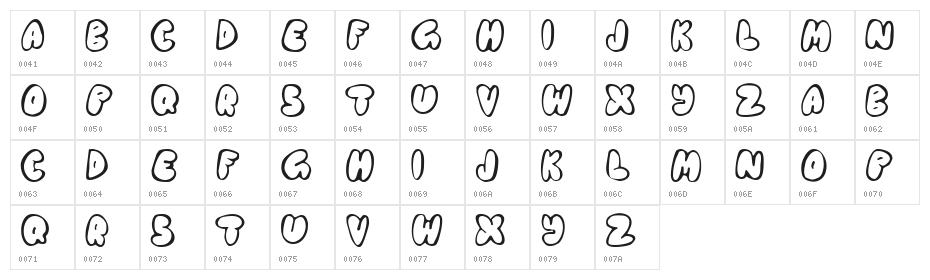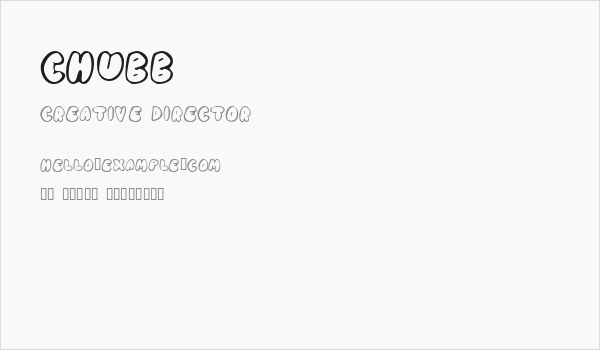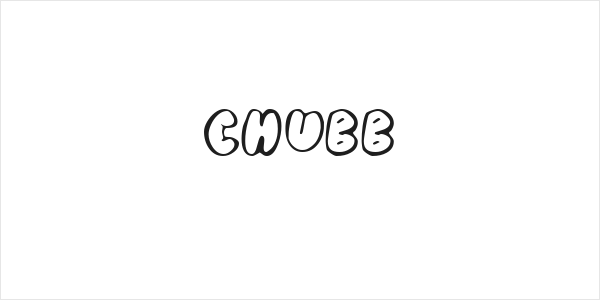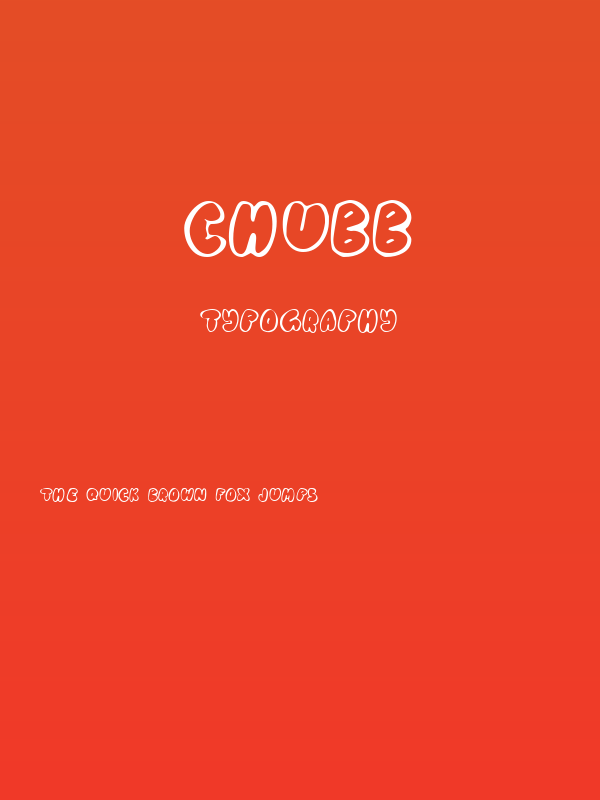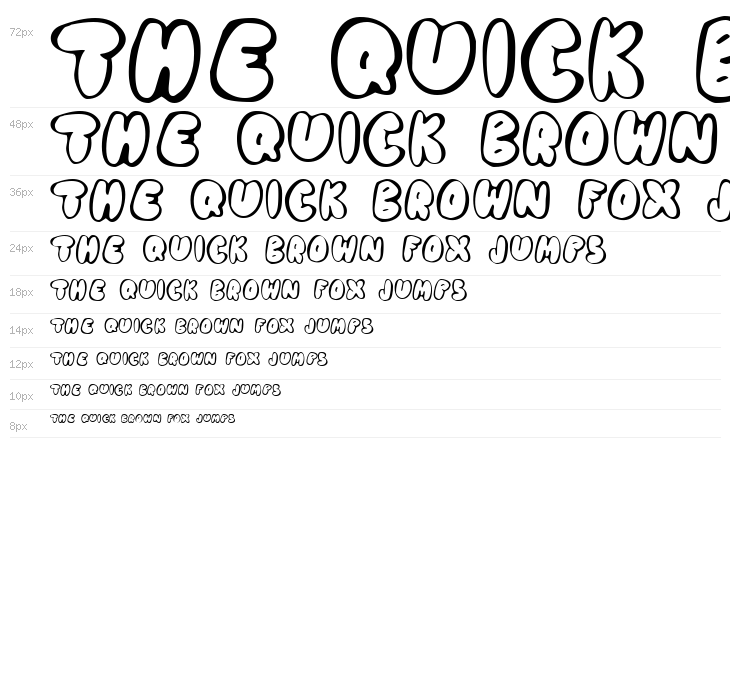
Chubb Font
Chubb Description
This playful and bold font features thick, rounded letters with a bubbly, cartoonish appearance. The characters are outlined, giving them a three-dimensional effect that enhances their playful nature. The uppercase and lowercase letters maintain a consistent style, with each character exhibiting a friendly and approachable design. The numbers and special characters follow the same aesthetic, ensuring a cohesive look across all text elements. This font's unique style makes it ideal for projects that require a fun and engaging visual impact.
| Overall Style | Playful, Cartoonish |
| Proposed Projects | Ideal for children's books, comic strips, playful branding, party invitations, and any project needing a fun, engaging look. |